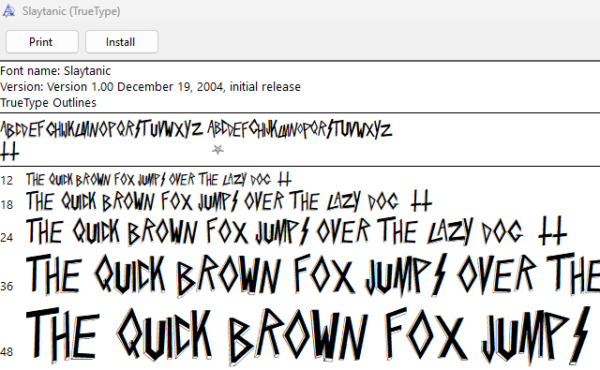
The Slayer font that most closely resembles the album lettering for the band is a typeface by the name of Slaytanic. It was created by the font author Chris Hansen, and was first released in December of 2004.
The look and feel of this font is closely aligned with the logo text for the band, which was created by Blake Edwards.
An interesting point that I discovered whith this font is the lowercase and uppercase have a slightly different design element - the uppercase have an 3D Outline. The following is a screenshot that I took which demonstates all of the different glyphs. Both font types are included in this package - OTF and TTF.